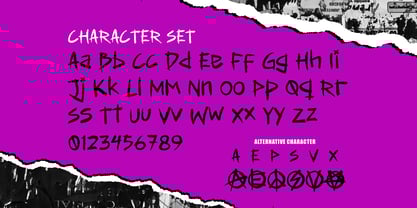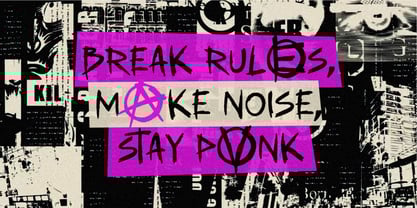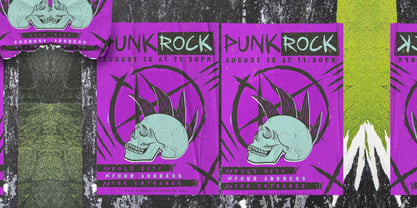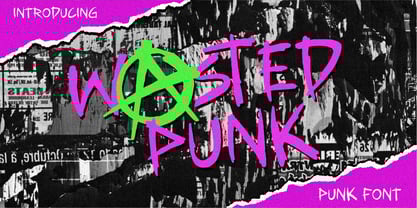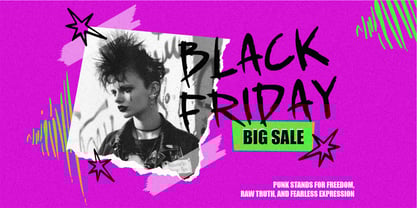
Wasted Punk
by Shanaf
The Wasted Punk Font Family was designed by Yesie Erma Yunita and published by Shanaf. Wasted Punk contains 1 styles. More about this family
Wasted Punk - Punk Font is a bold, rebellious digital font product infused with a distinctive street and punk aesthetic. Featuring sharp, dynamic strokes and energetic brush-like textures, this display font captures the raw, unfiltered spirit of punk culture. Each character exudes spontaneity, defiance, and urban grit, effectively delivering visual impact through an intentionally rough, handwritten style. The chaotic yet balanced layouts showcased in the previews vividly represent its compatibility with dynamic visual designs, making this font an ideal choice for striking posters, music album covers, edgy branding, and skateboard graphics.
Designed with versatility in mind, Wasted Punk thrives in projects that demand attention, including business branding, logos, film titles, packaging, and magazines that embrace urban culture and music. The vibrant color contrasts and anarchic symbols featured throughout the previews further underscore its suitability for creative crafting, stickers, book covers, and invitation cards. Whether used in digital or print mediums, this font effortlessly conveys a sense of authenticity and unapologetic expression, making it perfect for any design aiming to stand out and make a statement.